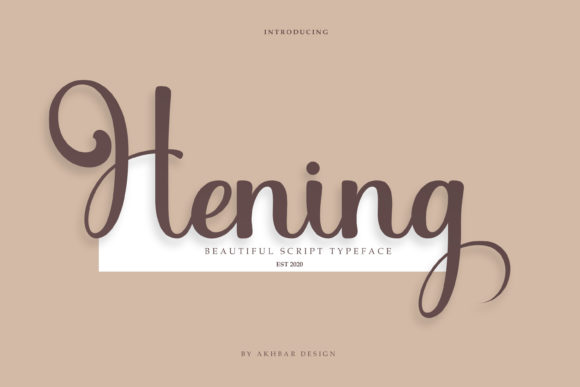
Introducing Hening Font, the ultimate choice for discerning designers and typography enthusiasts. This captivating script font, meticulously crafted by the renowned akbarmuharram47, embodies elegance, grace, and timeless appeal.
Immerse yourself in the world of Hening, where every letter dances with a delicate rhythm, creating an unparalleled visual harmony. Its flowing curves and graceful strokes evoke a sense of fluidity and movement, reminiscent of the most enchanting handwritten scripts.
Hening's versatility knows no bounds, effortlessly complementing an array of design concepts. From enchanting wedding invitations to captivating brand logos, this font adds a touch of sophistication and charm to every project it graces. Its wide range of glyphs, swashes, and alternates empowers you to unleash your creativity and forge truly exceptional designs.
Indulge in the beauty of Hening's varying baseline and smooth lines, which lend a touch of dynamism and visual interest to your creations. Each character is a masterpiece, carefully balanced and meticulously crafted to ensure a flawless aesthetic.